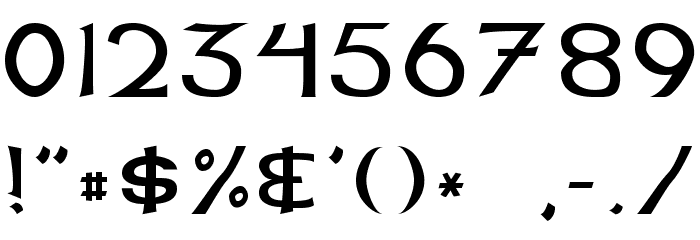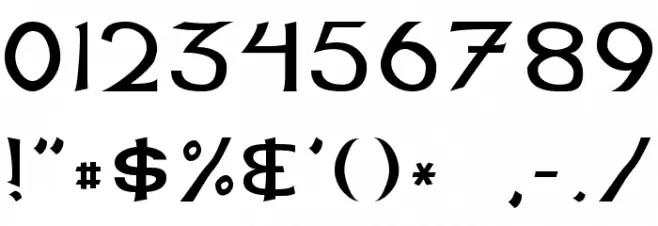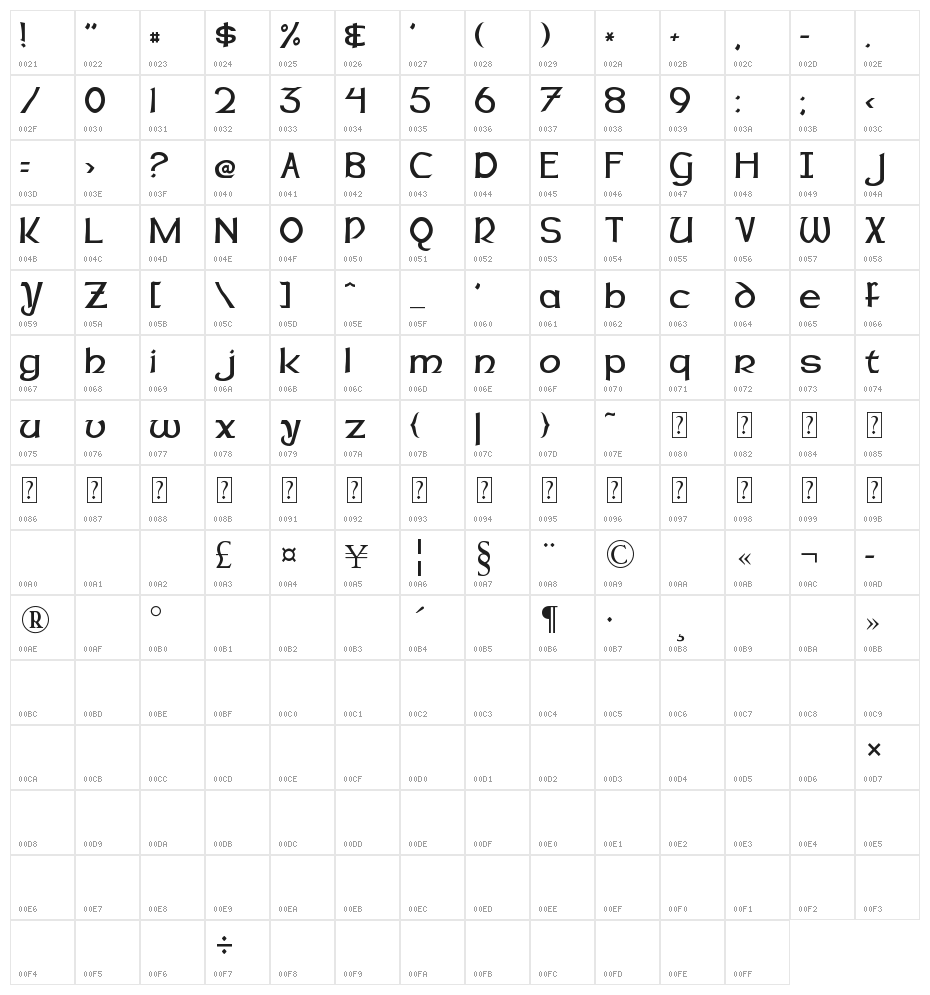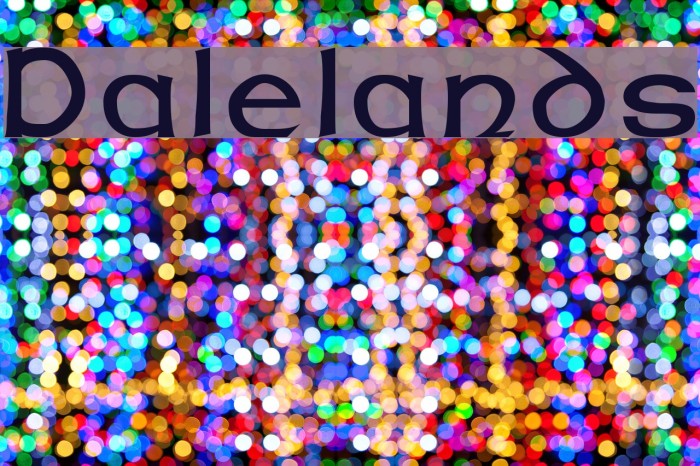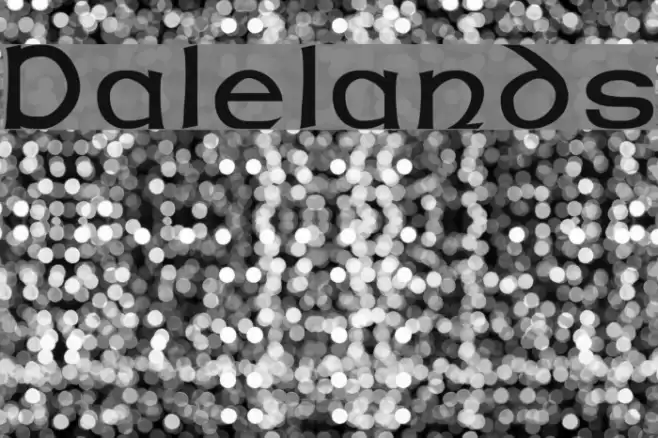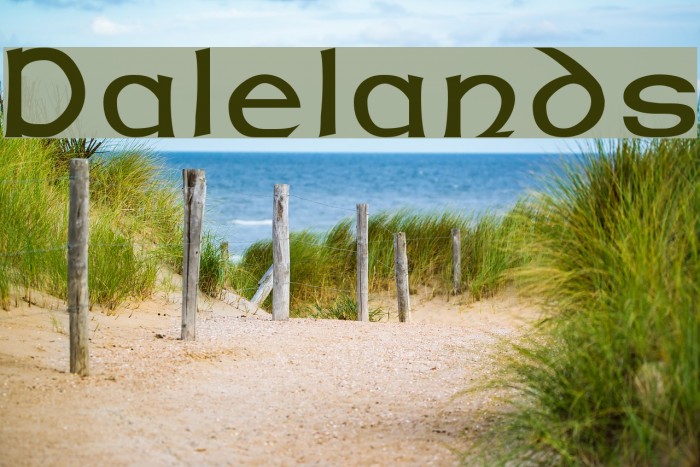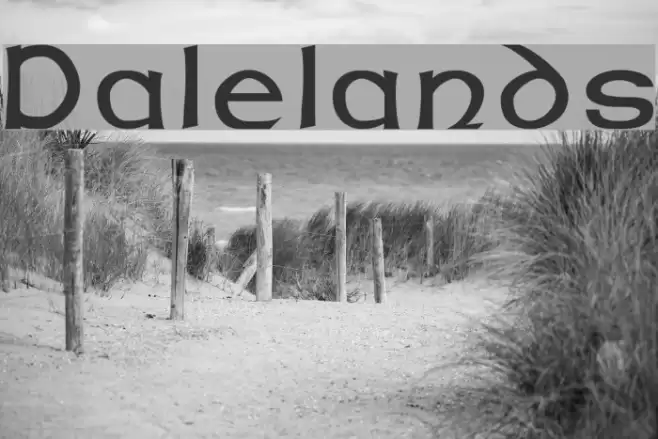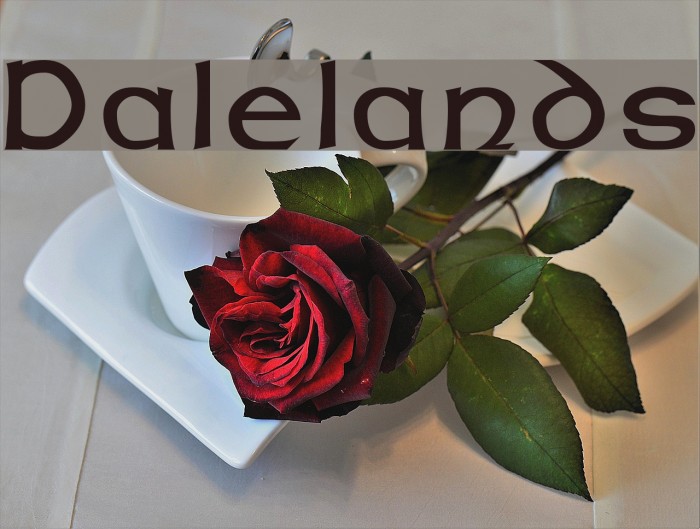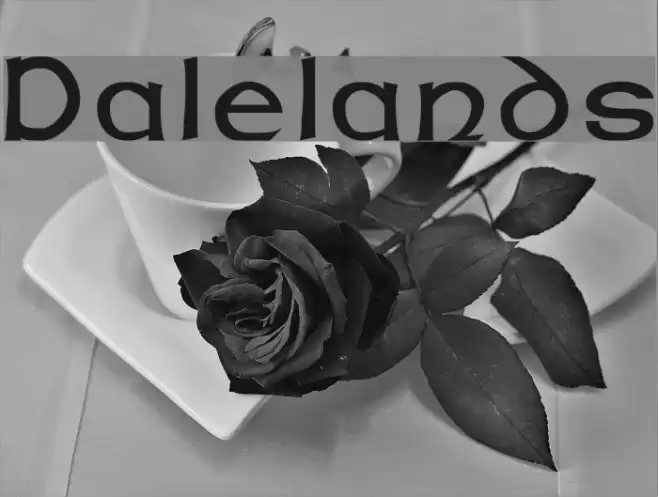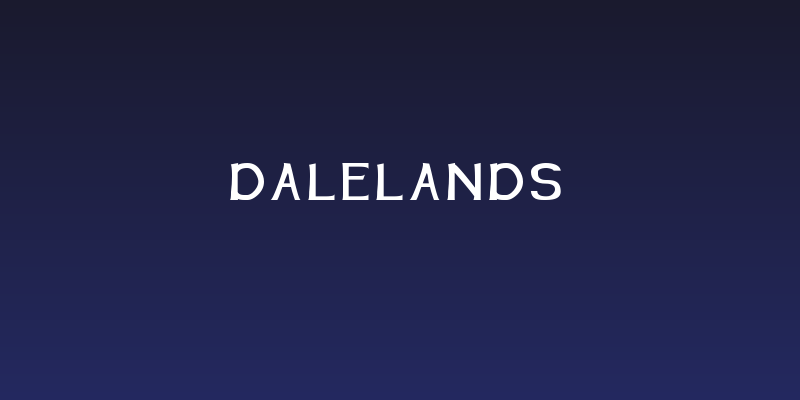
Dalelands Font
Dalelands Description
This font features a unique blend of classic and modern elements, characterized by its distinct, slightly angular serifs and a subtle medieval flair. The uppercase letters exhibit a strong presence with a slight curvature that adds a touch of elegance. Lowercase letters maintain a consistent style, with a slight slant that enhances readability. The numerals are bold and clear, making them suitable for various applications. Special characters are well-integrated, maintaining the overall aesthetic. The font's design is both decorative and functional, making it versatile for a range of uses.
| Proposed Projects | Ideal for fantasy-themed projects, book covers, branding, and invitations. |